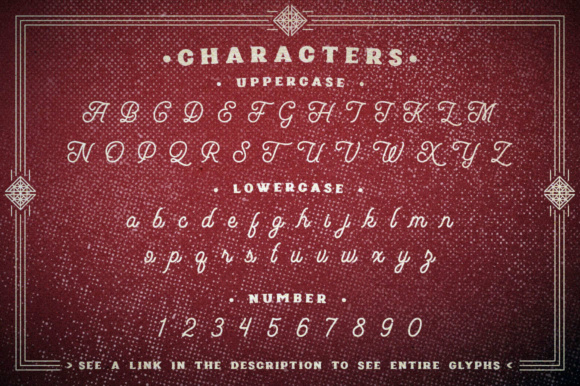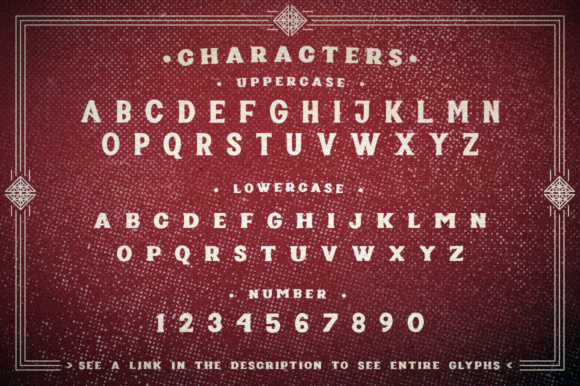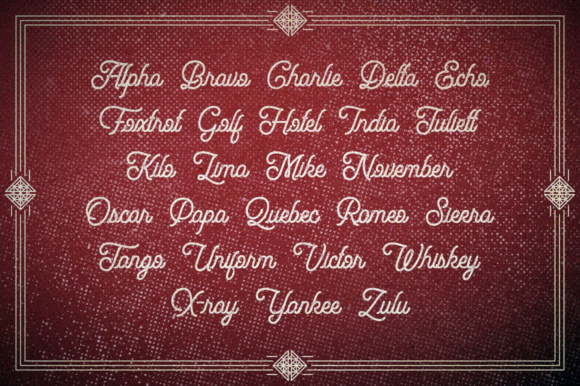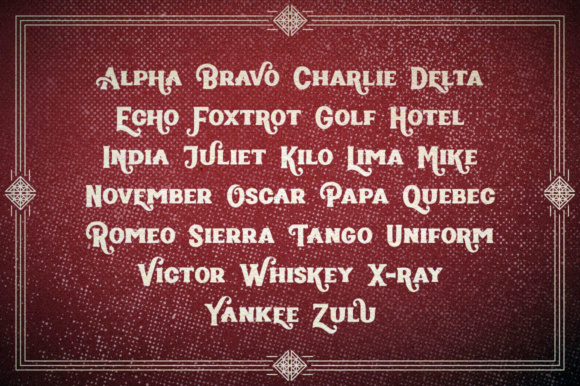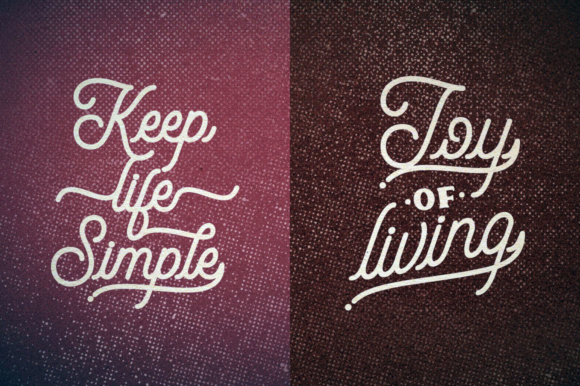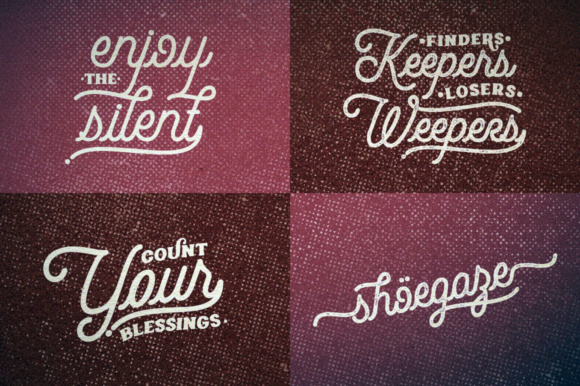
Introduction to Poptis & Heaver Font
You know that feeling when you’re brainstorming ideas for a new creative project and the perfect font just slips right into place, elevating your entire design? It’s like a little spark of magic that makes your project go from meh to mesmerizing. For designers, finding that elusive font can be a game-changer. That’s where the stunning Poptis & Heaver Font comes in – a versatile duo that’s sure to take your designs to the next level.
With its four unique styles, this font duo offers endless possibilities for mixing and matching to create a look that’s uniquely yours. Whether you’re working on a logo, lettering, clothing design, poster, label, or quote, Poptis & Heaver Font is the perfect design resource to help you bring your vision to life.
Key Features of Poptis & Heaver Font
- Includes a comprehensive set of characters, including uppercase and lowercase letters, numbers, and punctuation
- Designed with a unique, modern aesthetic that sets it apart from other fonts
Honest Review: Poptis & Heaver Font
I recently stumbled upon the Poptis & Heaver Font, and I must say it’s a gem in the world of design resources. The first thing that caught my attention was its unique and quirky design. It’s perfect for adding a touch of playfulness to your creative project.
- High quality and detailed design ✨
The Poptis & Heaver Font is incredibly versatile and can be used in a variety of designs, from logos to branding materials. I particularly love how it adds a touch of whimsy to text-based designs.
- Limited character set, which may be a drawback for some designers ⚠️
- No bold or italic variations available